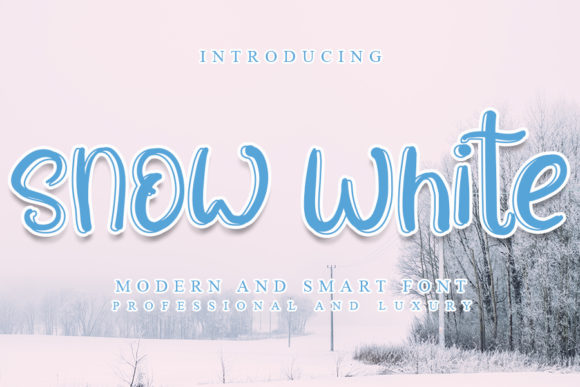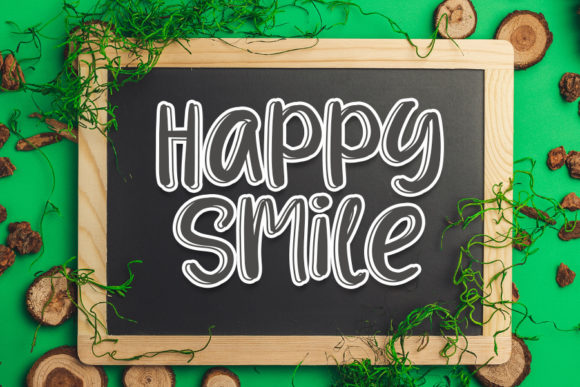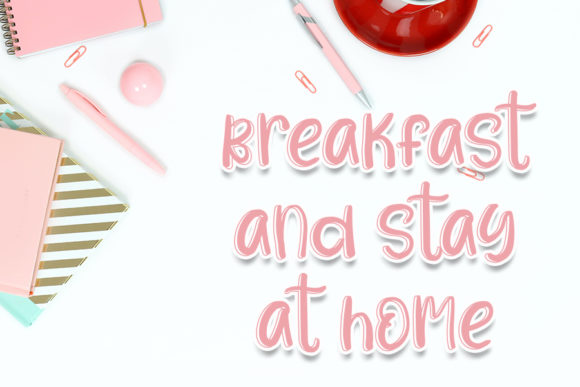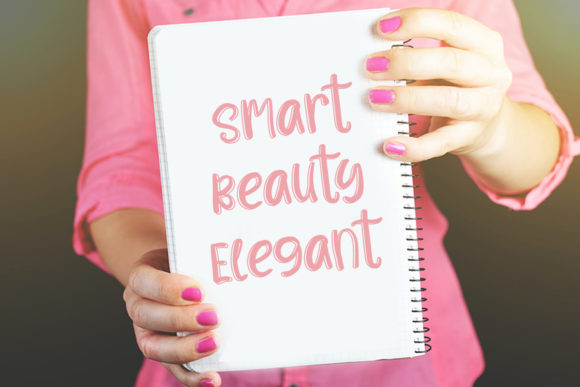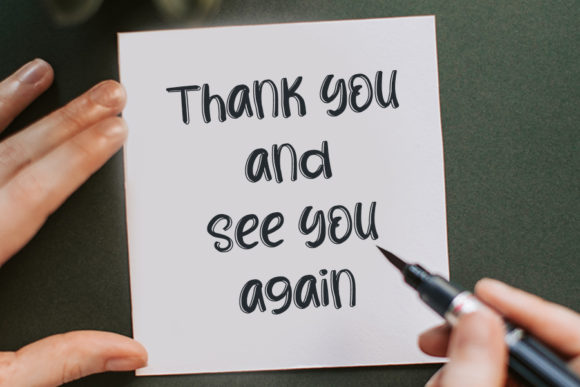
Snow White Font
About Snow White Font
Snow White is a stunning handwritten font that exudes simplicity and elegance. With its versatile style, it is perfect for a variety of winter-themed design projects. Here are some creative ideas on how to use Snow White in your winter-inspired designs:
1. Winter Greeting Cards: Create beautiful and heartfelt winter greeting cards using Snow White to add a personal and handmade touch.
2. Winter Wedding Invitations: Design elegant and romantic winter wedding invitations with Snow White, capturing the magic of the season.
3. Winter-Themed Letterheads: Use Snow White for winter-themed letterheads to add a charming and cozy feel to your correspondence.
4. Winter Stationery: Create stylish and sophisticated winter-themed stationery sets with Snow White for a cohesive and polished look.
5. Winter Event Flyers: Design eye-catching event flyers for winter festivals, markets, or celebrations using Snow White to set the tone.
6. Winter Quotes and Posters: Add Snow White to winter quotes and posters for a soft and inviting appearance.
7. Winter Social Media Graphics: Enhance your winter-themed social media posts with Snow White for captions and quotes that stand out.
8. Winter Scrapbooking: Use Snow White for winter-themed scrapbooking layouts to create cherished memories.
9. Winter Packaging: Incorporate Snow White into winter-themed product packaging for a charming and handmade touch.
10. Winter Blog Graphics: Create engaging winter blog graphics using Snow White to add a cozy and inviting vibe.
In summary, Snow White is a beautiful and versatile handwritten font that is perfect for a wide range of winter-themed design projects. Whether you’re creating greeting cards, wedding invitations, social media graphics, or event flyers, Snow White will add a touch of simplicity and elegance to your creations, capturing the essence of the winter season. Let your creativity shine with Snow White and bring a cozy and enchanting atmosphere to your winter-inspired designs.